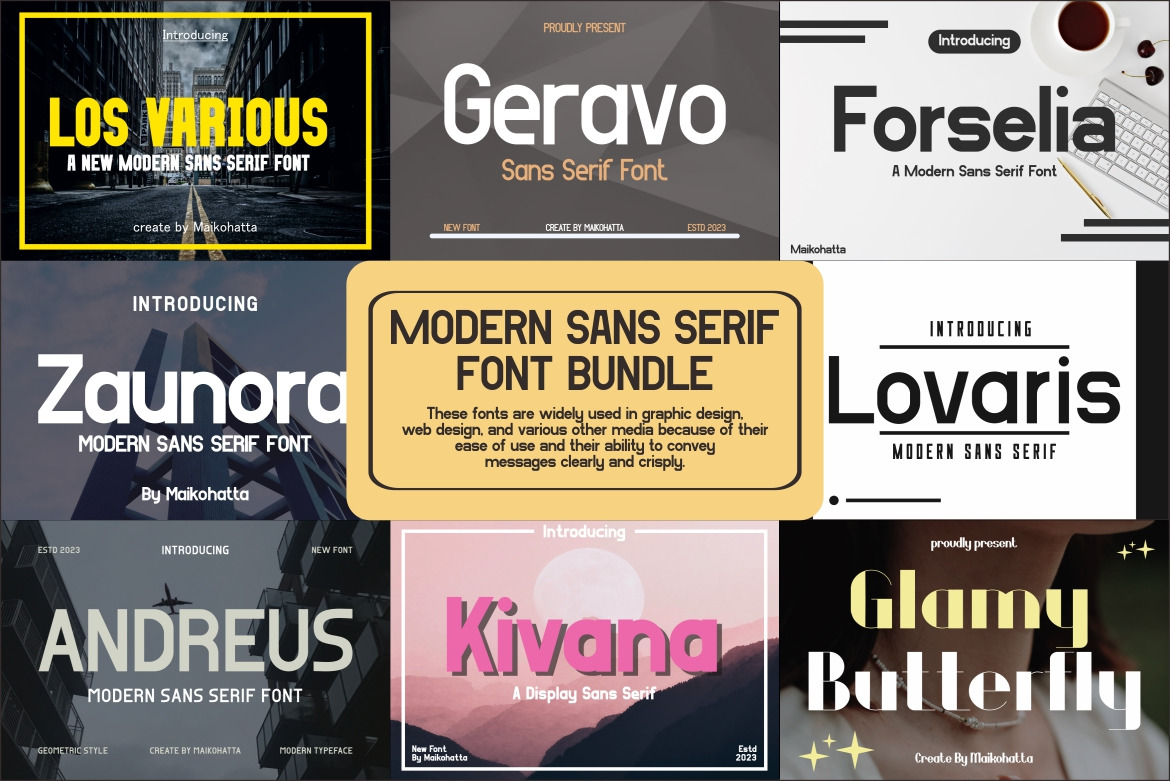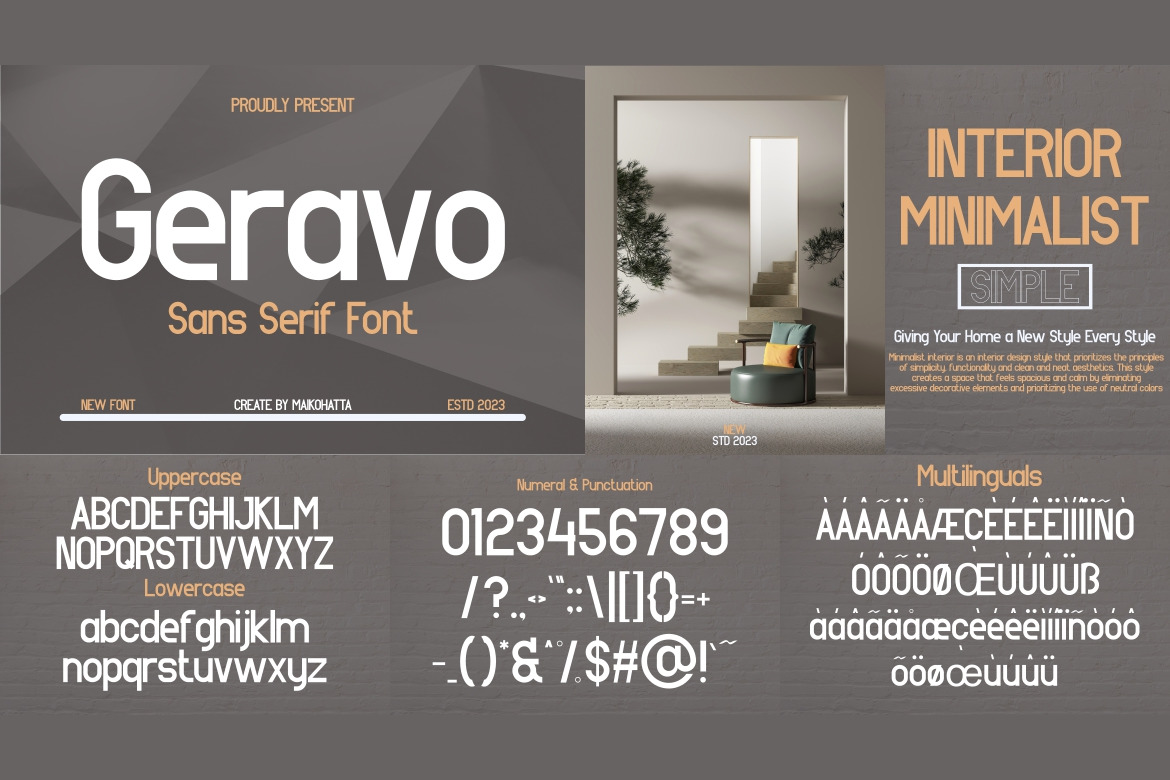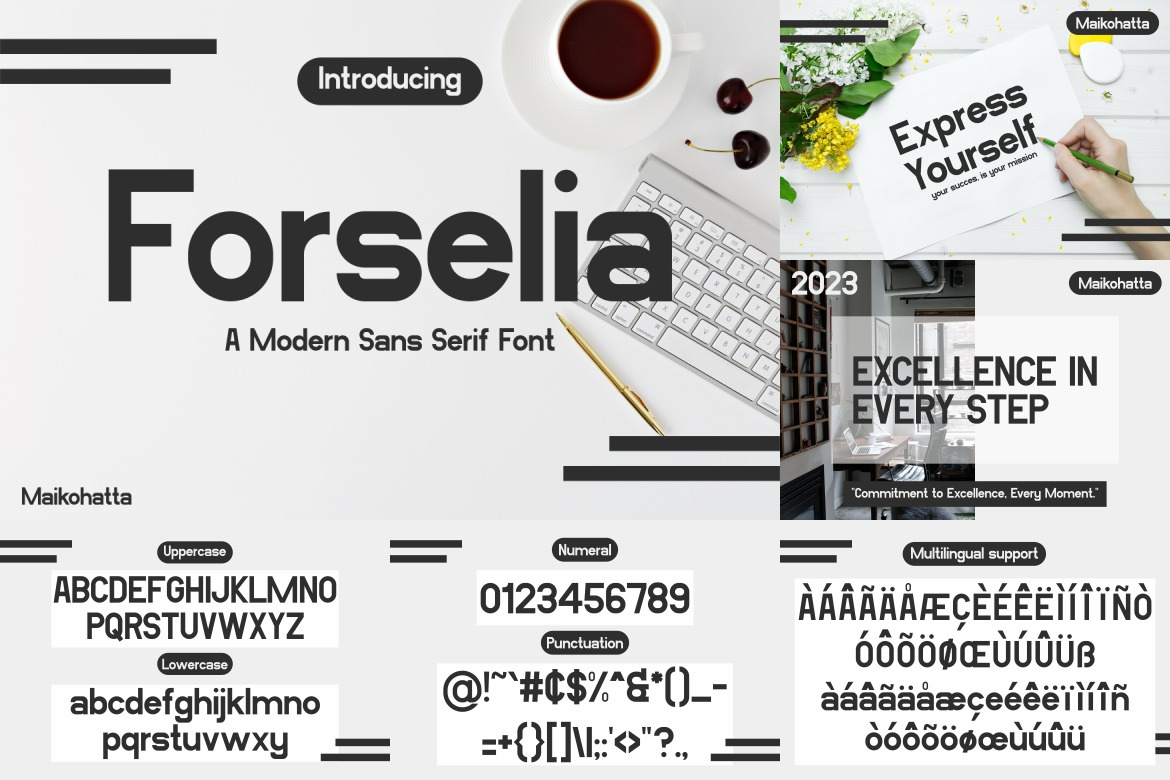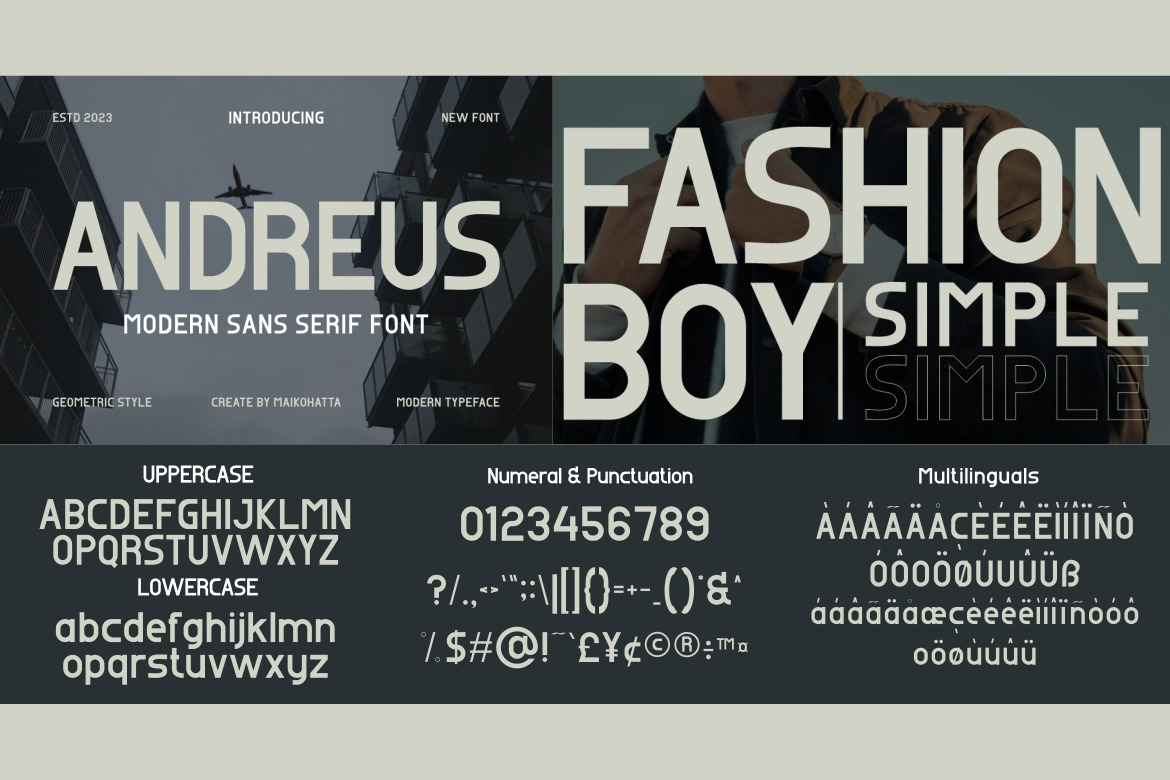
Modern Sans Serif Font Bundle
This Font is a very flexible choice and can be used in a variety of design contexts. Its ability to provide a clean, professional, contemporary look and its simplicity and visual appeal make this font good for use in the world of graphic design and modern typography.
* Uppercase
* Lowercase
* Multilingual
Note : Glamy Butterfly Font does not use multilingual